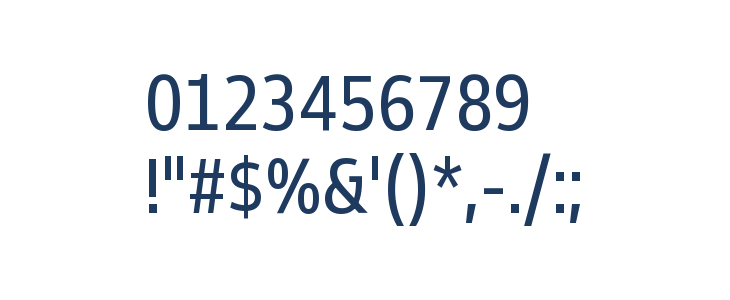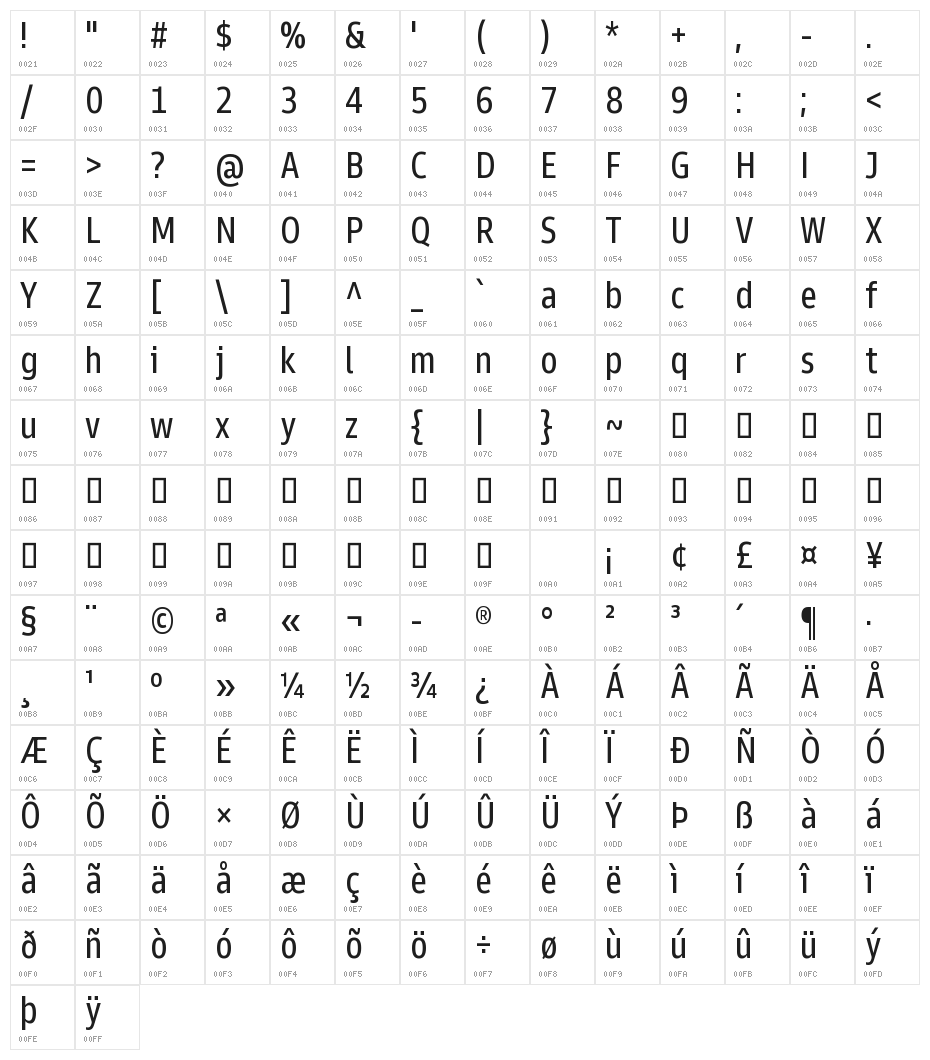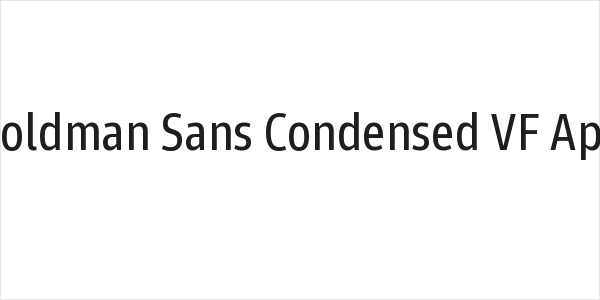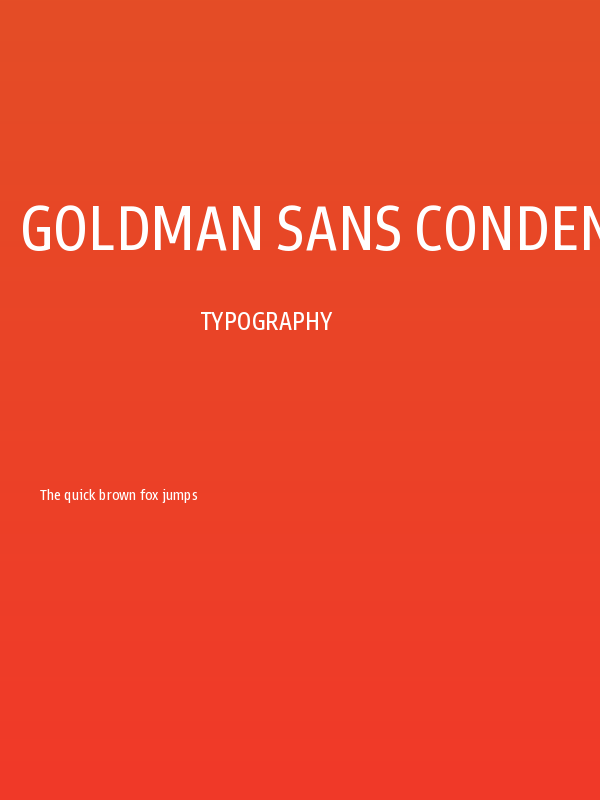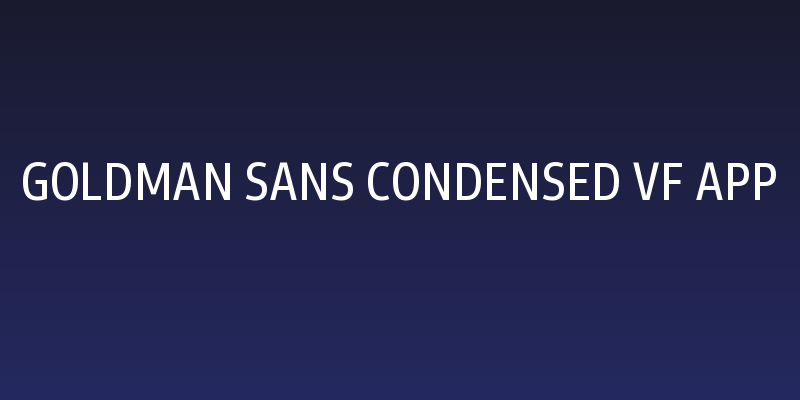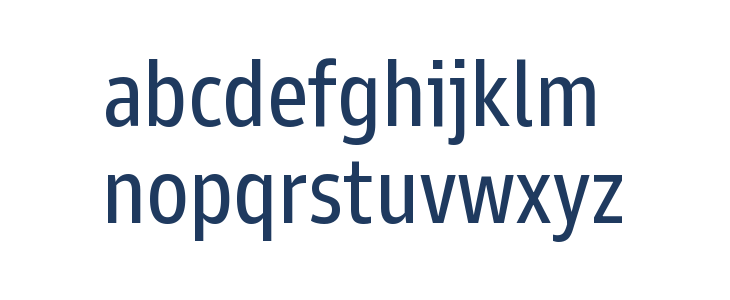
Goldman Sans Condensed VF App Font
Goldman Sans Condensed VF App Description
This typeface features a clean and modern sans-serif design with a condensed structure, making it ideal for space-saving applications. The characters are uniformly proportioned, providing a balanced and harmonious appearance. The uppercase and lowercase letters are well-defined, with a consistent stroke width that enhances readability. The numerals are clear and distinct, ensuring easy recognition. Special characters are included, maintaining the font's cohesive style. This font's simplicity and clarity make it versatile for various design needs.
| Proposed Projects | Ideal for use in digital interfaces, corporate branding, advertising, and editorial design where space efficiency and clarity are essential. |